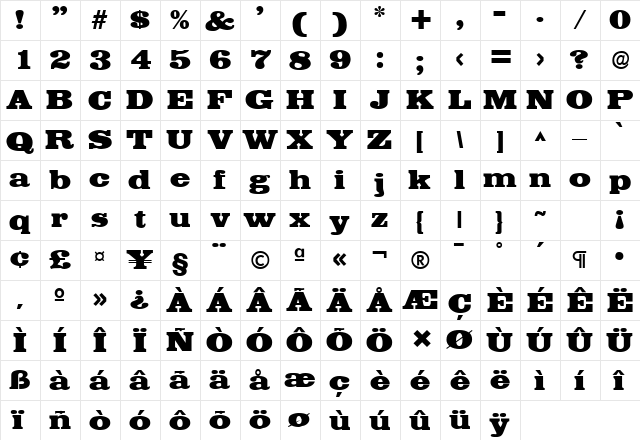
Cairo SF Regular
Design Context for Cairo SF Typeface
Cairo SF is a composed and adaptable typeface that performs quietly and consistently across a wide range of design contexts.